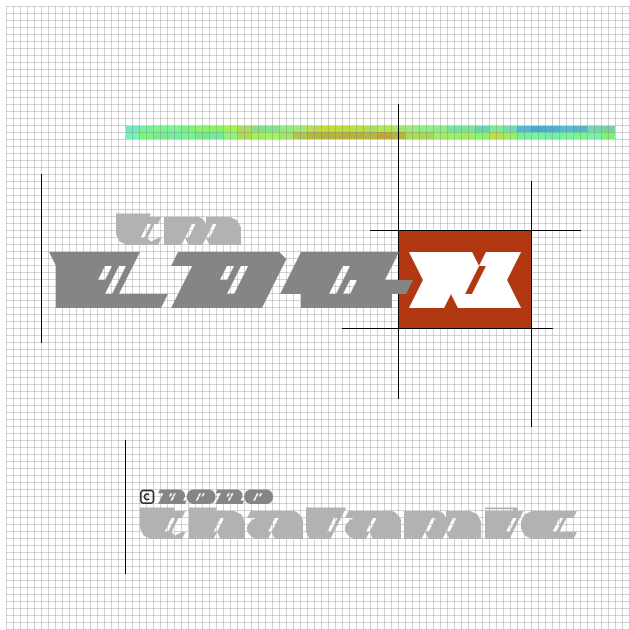
the lower y is BEAUTIFUL i love it
Wow. Nice one. I especially like the half-inverted diacritix.
This is wonderful!
very nice bold font
I'm with the boys: Wonderful Work. Congrats on the TP, master!
Very cool futuristic look! This would probably be doable with real curves as well...? N and O seem to be a little too close to each other.
There seems to be NO spacing in the emphasized word in capitals.